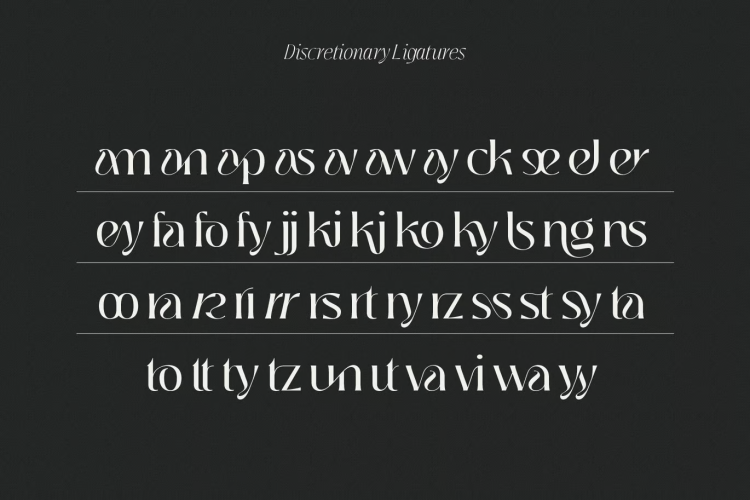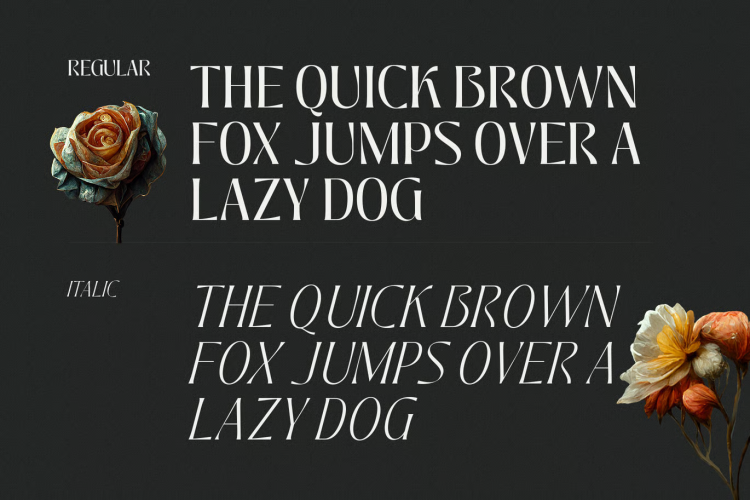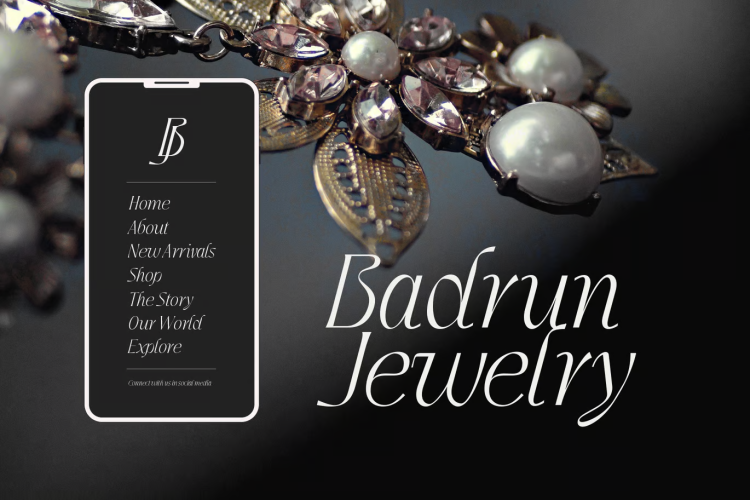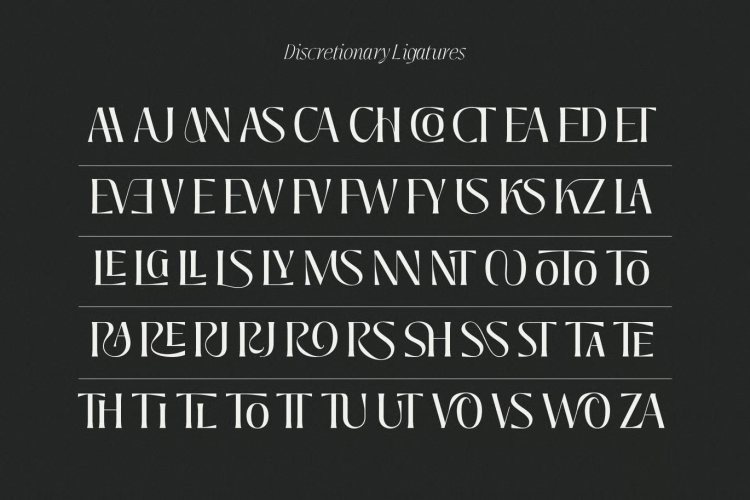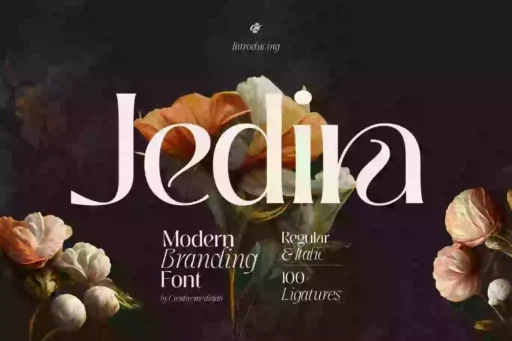
Jedira Font
Jedira is another modern font for branding by Creativemedialab. It is a beautifully designed display font that has its matching italic and numerous ligatures. This font is suitable for branding, web design, logo, fashion related concept, and many other purposes.
Jedira Font is a Serif Fonts font that brings a professional and versatile look to your projects. Jedira is another modern font for branding by Creativemedialab.